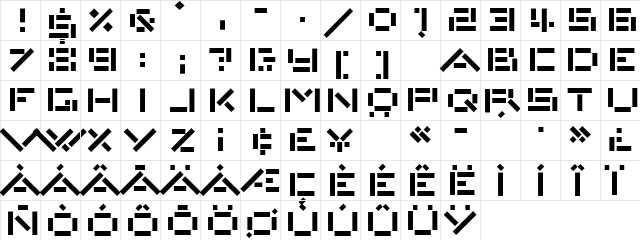
VanDerLeckArchiType Regular Font Preview
VanDerLeckArchiType Regular
Design Context for VanDerLeckArchiType Typeface
VanDerLeckArchiType takes a measured approach to typography — its balanced proportions and neutral character make it a reliable workhorse for both digital and print work.